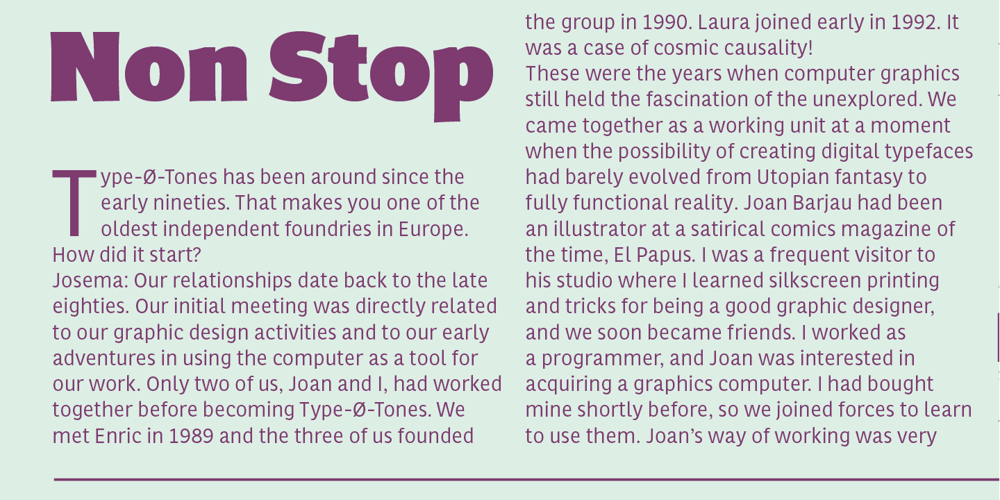
Multi Font Family was designed by Laura Meseguer and published by Type-Ø-Tones. Multi contains 20 styles and family package options. Multi is an extensive sans serif typeface family that consists of two subfamilies: Multi Text that comprises three weights (roman & italic) and Multi Display (seven weights, roman & italic). Vitality bursts forth from Multi. It has a distinctive ‘phrasing’ (in the musical sense), neither humanist nor glyphic, somewhere in between, exploring uncharted territory. Its design is pragmatic, yet not rigid, slightly tinged with tiny incised touches. This is clearly noticeable in Multi Display: the roman lowercase’s asymmetric stems are very softly tapered, with bevelled, sharp upstrokes. Furthermore, all weights consistently share these idiosyncrasies from Thin to Poster. With its lower contrast, wider proportions, shorter ascenders and descenders, Multi Text was purposely adjusted to meet all the requirements of a legible typeface for newspapers in paper and screen, as they were manually hinted. It also has a few new features, such as the outstrokes of the roman ‘l’ and the italic ‘a’, which bring a subtle calligraphic feel to the text flow.